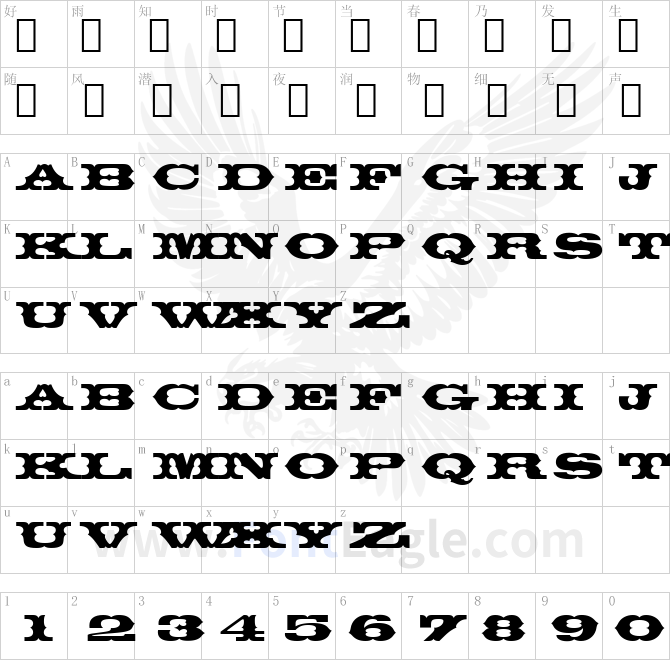
Thunderbird-BT-copy-3- is a great font, widely used in graphic design, single-page menu design, poster design and other fields, and is deeply loved by designers.Thunderbird-BT-copy-3- download.